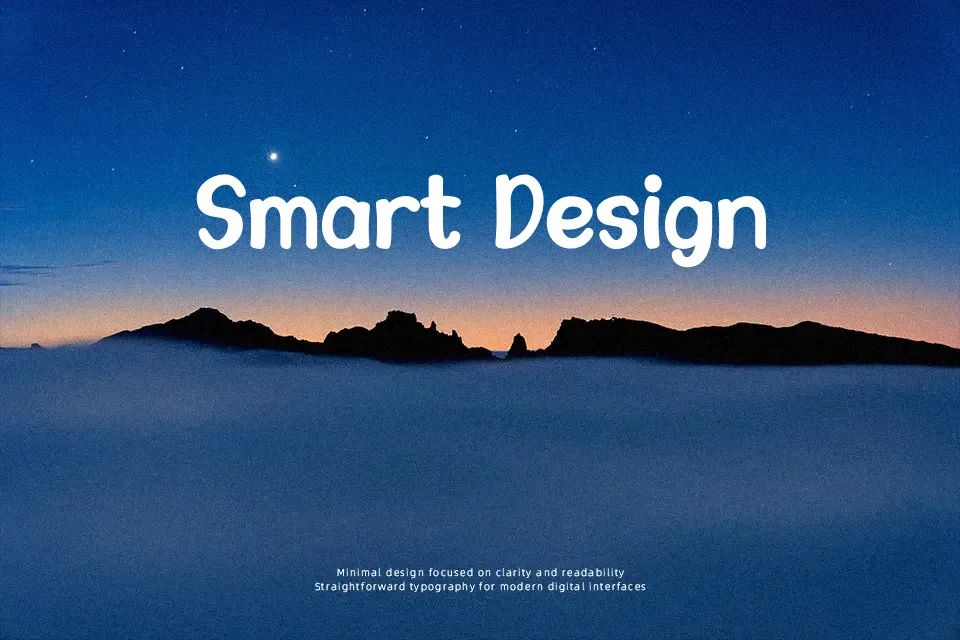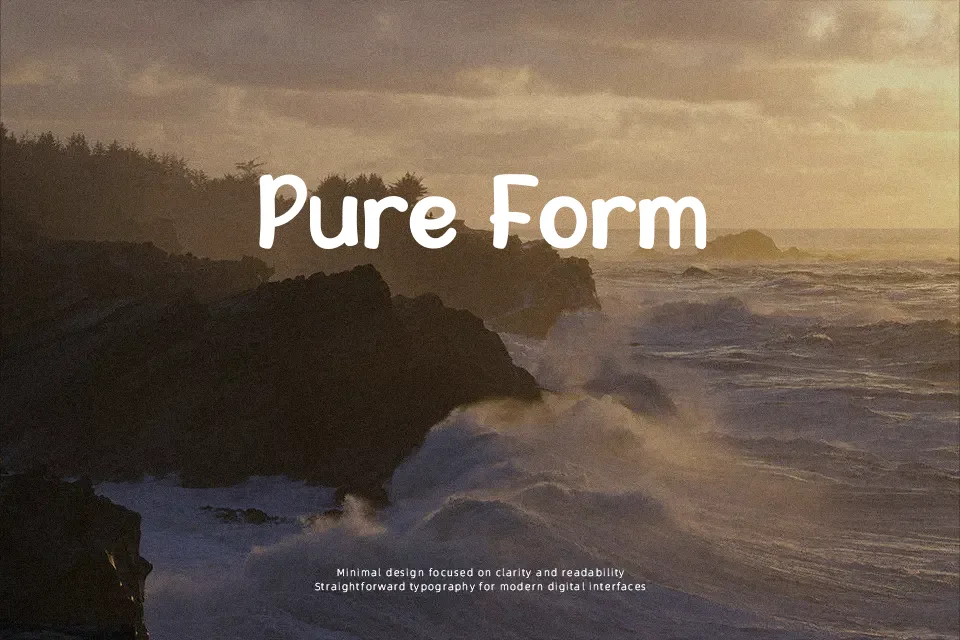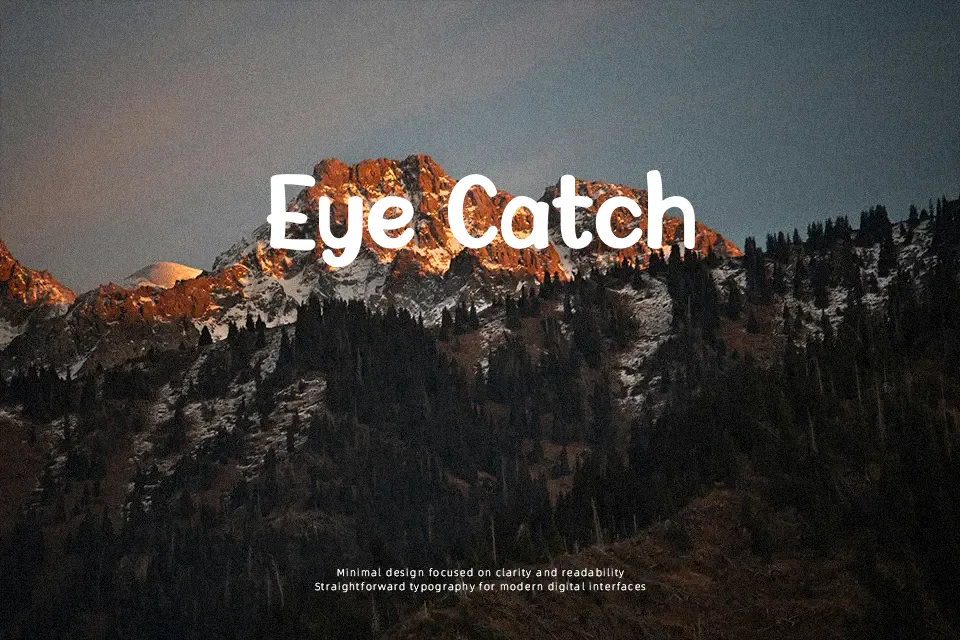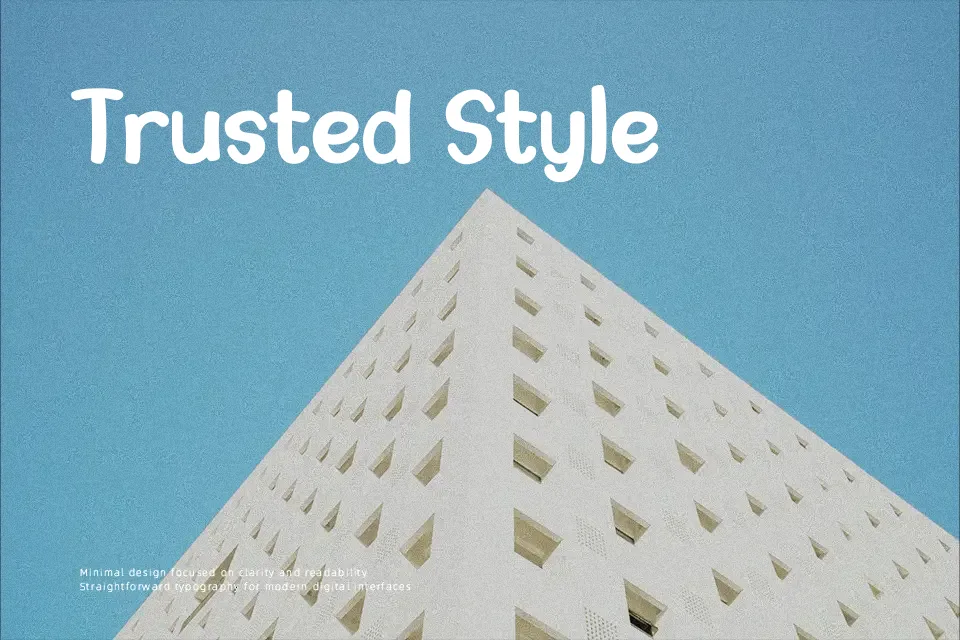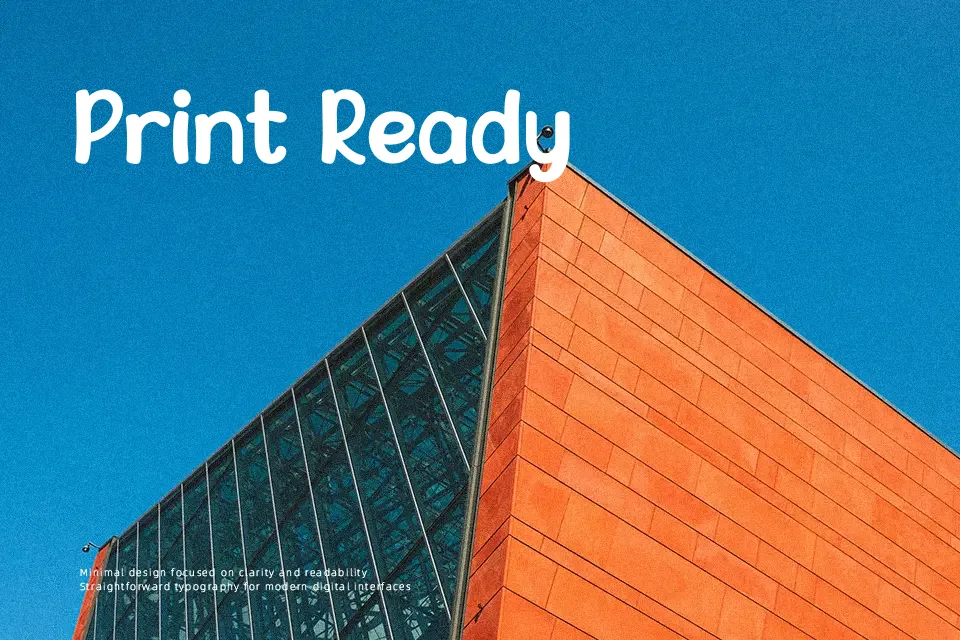
Challenge The World Font
Challenge The World Font establishes an immediate visual presence through thick stroke weights, expressive outlines, and energetic proportions. The letterforms feature compact interior counters and balanced spacing that emphasize readability across prominent display environments. In practical applications, the design excels in video game title cards, apparel graphics, and packaging labels where bold personality commands attention. However, the dense glyph structure and heavy letter weighting make the font unsuitable for extended body text or dense editorial columns. At smaller optical sizes, fine negative spaces tend to close up, reducing reading comfort. The typeface remains a dependable option whenever maximum impact and creative character take priority.
Best For: video game titles, youth apparel graphics, promotional event posters, snack food packaging
Not Ideal For: extended paragraph text, technical documentation, mobile interface captions, financial reports
Perfect for gaming, headline, and logo, with a bold and cartoon style.